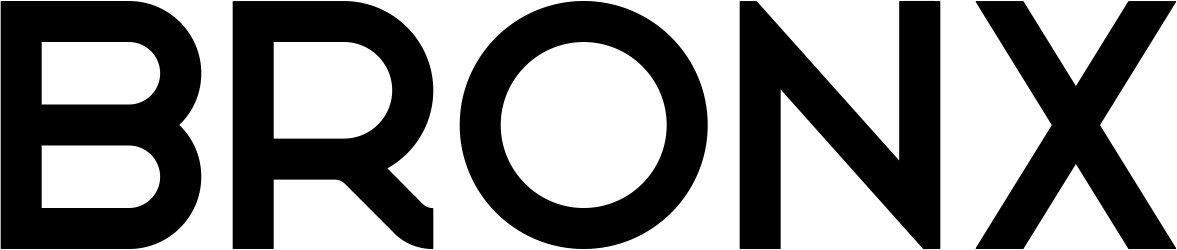
Bronx Font
Designed byVPcreativeshop
Bronx is a sans serif font. This font is highly readable and conveys a sense of formality and respect to the audience. The Bronx does not support lowercase letters, numbers, or punctuation. Graphic designers use this font extensively in the design of logos, brochures, banner ads, web pages, and applications.